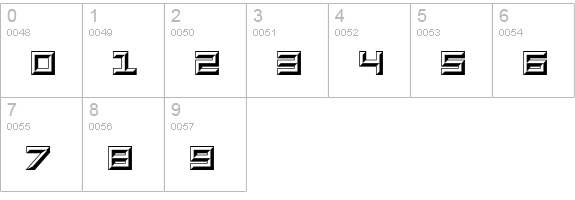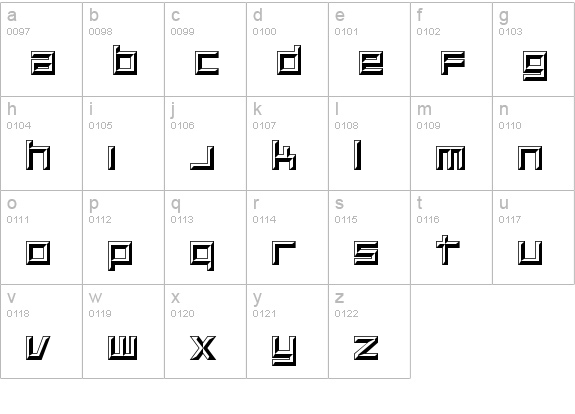
Platinum Beat BTN Chiseled font is a stunning display typeface that exudes elegance and sophistication. Its chiseled design gives it a unique and modern look, making it perfect for projects that require a touch of luxury. The sharp edges and clean lines of this font make it stand out and capture attention effortlessly. What's even better is that Platinum Beat BTN Chiseled font is available for free download at FontsMarket.com. This means you can easily enhance your designs with this exquisite font without any cost. Whether you're working on branding, packaging, posters, or any other creative project, this font will elevate your work and make it truly memorable. Don't miss out on the opportunity to add Platinum Beat BTN Chiseled font to your font collection. Download it for free today and see how it transforms your designs with its sophisticated charm and modern appeal.